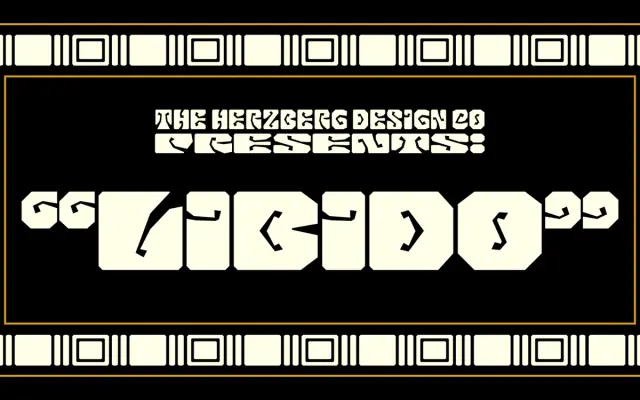
Libido
Herzberg Design · 2021
A variable unicase display typeface drawing from 1960s psychedelic poster lettering, offering 56 static styles across smooth and ragged cuts with width and optical size axes.
Inspired by the rectangular letterforms of Wes Wilson's 1960s psychedelic concert posters, each glyph is built on a rectangular grid with minimal cutouts defining the letter shapes. A variable width axis and optical sizing axis allow lines to be set at equal widths with consistent internal spacing, solving the central practical challenge of the genre. The ragged cut strips all curves for a distinct angular variant that loses the psychedelic associations of the smooth style and opens the family to different applications.
A display typeface in the tradition of 1960s psychedelic poster lettering, with rectangular letterforms, variable width and optical sizing axes, and a distinct unicase construction that places it firmly in the display genre.